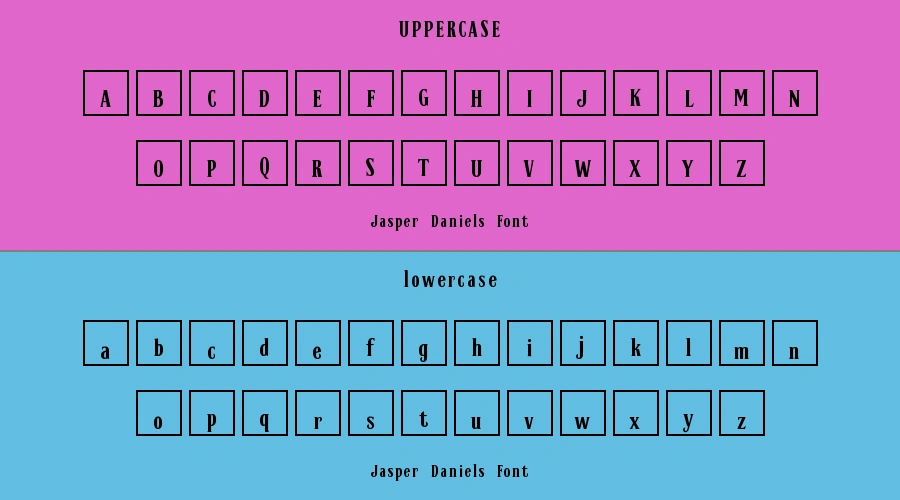
About Jasper Daniels Font
When typographic excellence matters most, Jasper Daniels Font delivers through its thoughtful blend of harmonious shapes and visual comfort. Specially crafted for magazine covers, it offers the scalability and system compatibility required for sophisticated design work. Every detail serves a purpose.
The character set showcases thoughtful details like flared stems alongside functional traditional styling. This proves especially valuable in compliance seals, where brand recognition directly influences results. Particular attention was paid to counter size and historical reference during development.